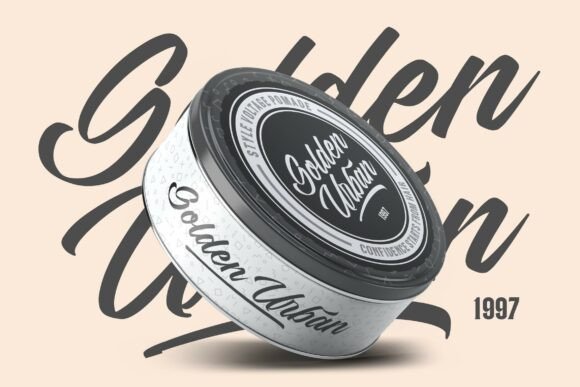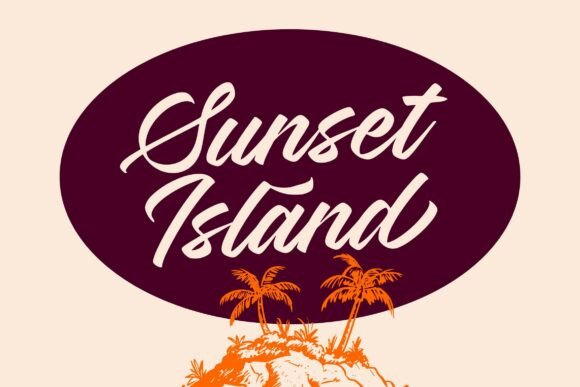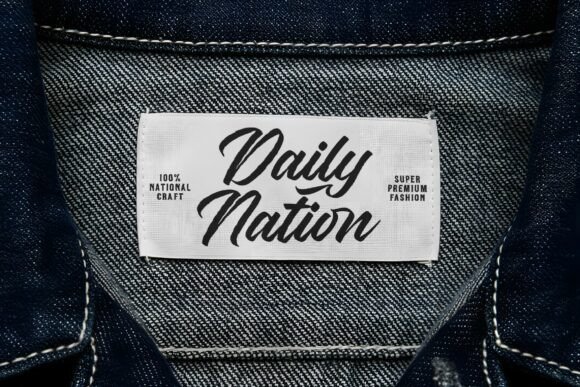
Introduction to Barty Stones Font
Barty Stones is a bold and expressive script font inspired by vintage road trips and retro signage.
With its smooth curves, dynamic strokes, and confident letterforms, it delivers a strong visual presence that instantly grabs attention Its handcrafted style blended with a modern touch makes it perfect for logos, branding, posters, packaging, and social media designs.